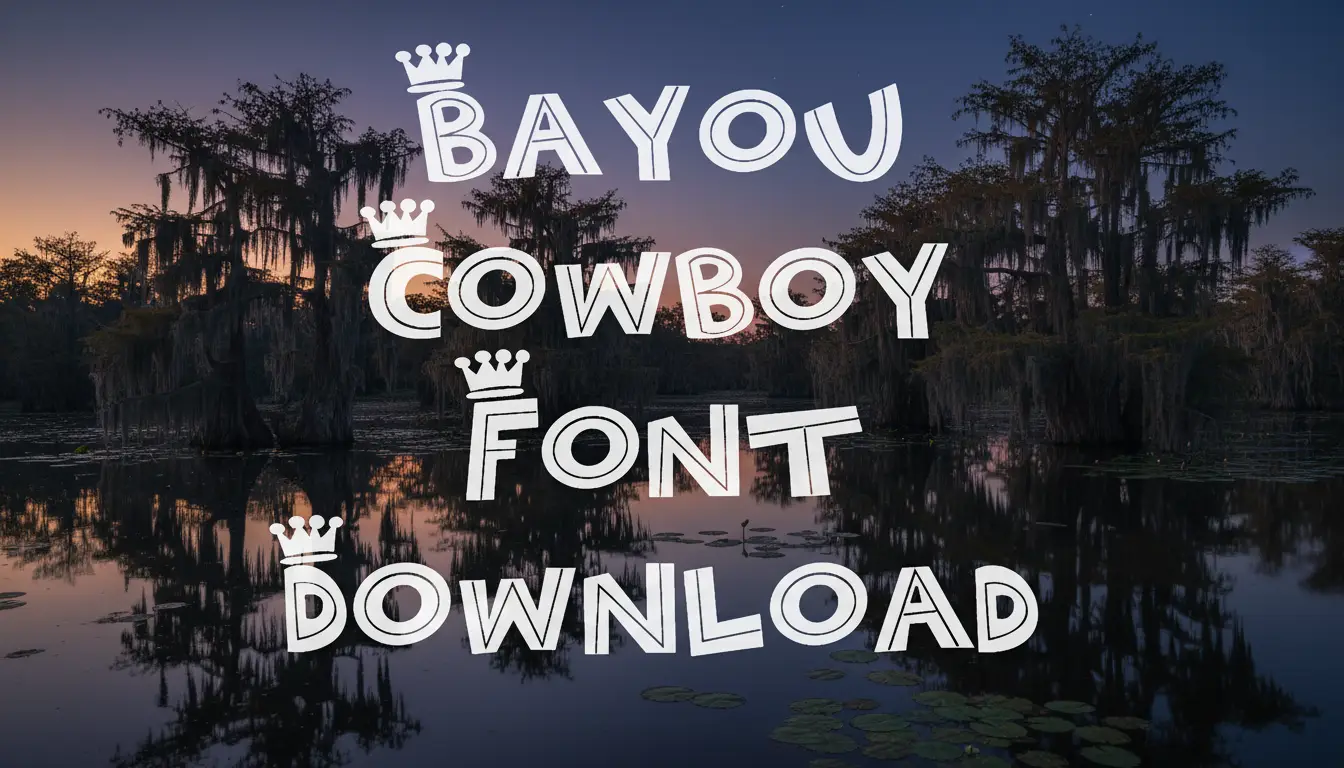
Bayou Cowboy Font
Bayou Cowboy Font Preview
Bayou Cowboy
Bayou Cowboy is a fancy font. It's a decorative display font with plenty of personality, made to grab attention. It's a free download, and you can try it with your own text in the preview above first.
What You Can Type With Bayou Cowboy
Bayou Cowboy covers the full alphabet in upper and lowercase, plus all ten numbers, so you can set names, dates and prices without switching fonts. Everyday marks like &, !, ? and @ are there too. Thanks to its accented letters, it also works for Italian, not just English.
Where Bayou Cowboy Works Best
Think of Bayou Cowboy for posters, logos and eye-catching headlines. Use it for one standout word or headline and let simpler fonts handle the rest.
Does Bayou Cowboy support accented letters?
Yes. Bayou Cowboy includes the accented letters needed for Italian, so it works for more than just English.